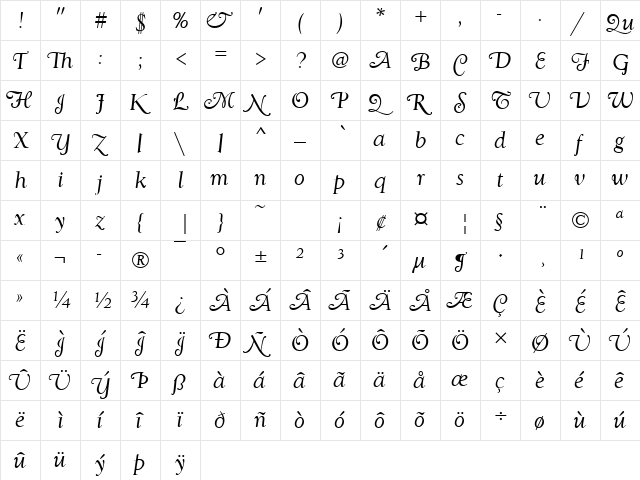
GoudySwaWtcT Italic
Design Context for GoudySwaWtcT Typeface
GoudySwaWtcT takes a measured approach to typography — its balanced proportions and neutral character make it a reliable workhorse for both digital and print work. Its italic angle brings a sense of urgency and motion to the letterforms.